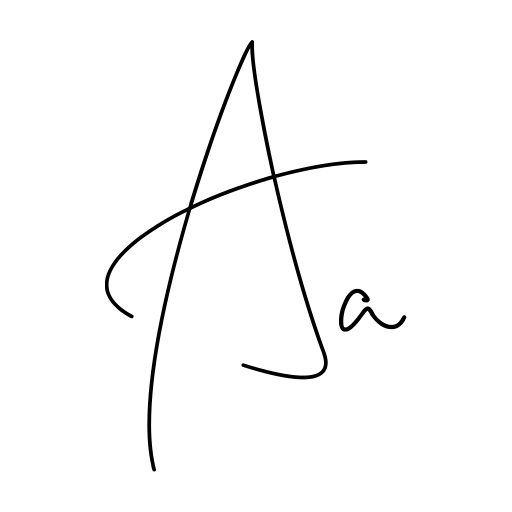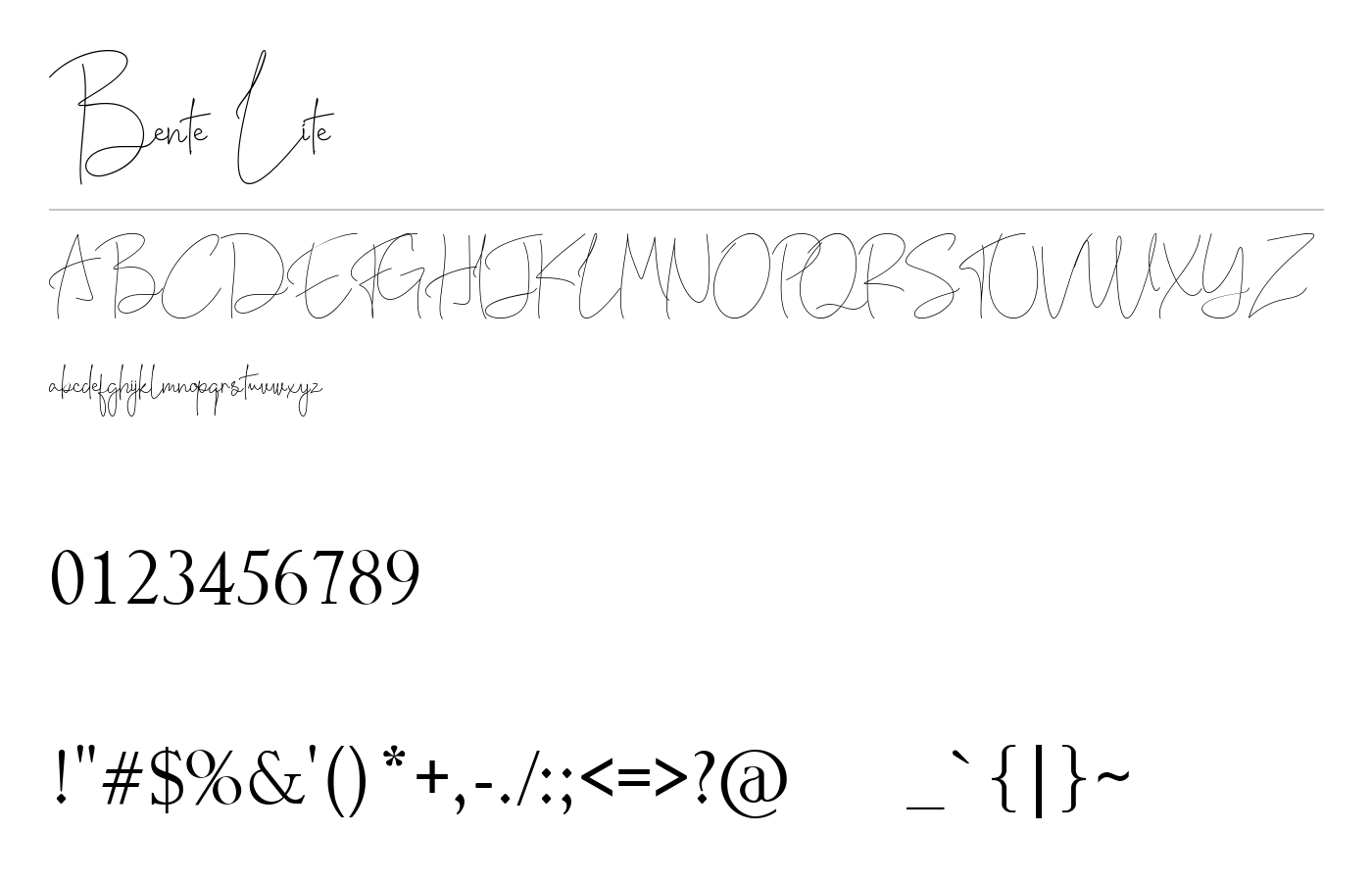
Bente Lite is an elegant, delicate script font characterized by its thin, airy strokes and tall, slender letterforms that evoke a handwritten, casual charm. Its light weight and flowing lines make it perfect for creating a sophisticated, personal touch in branding, invitations, and editorial projects where a soft, graceful appeal is desired. This font works especially well in designs that aim to convey femininity, creativity, and refined simplicity.
Bente Lite Font
About Bente Lite Font